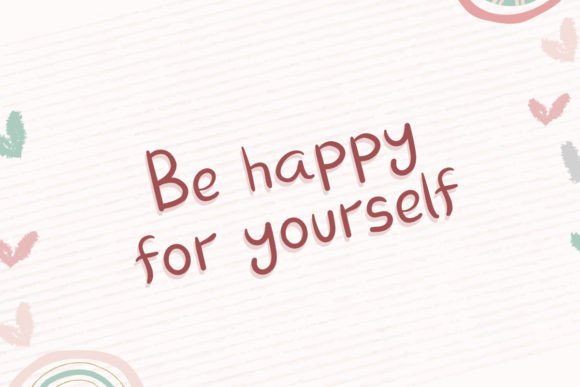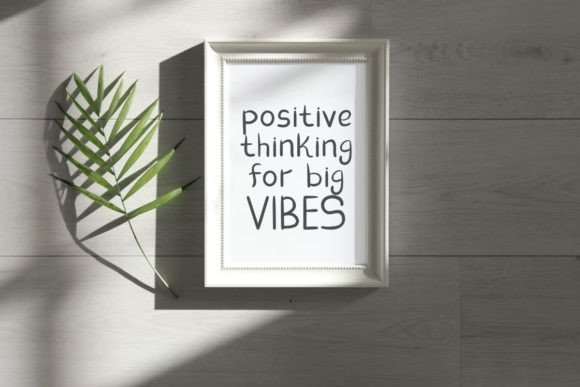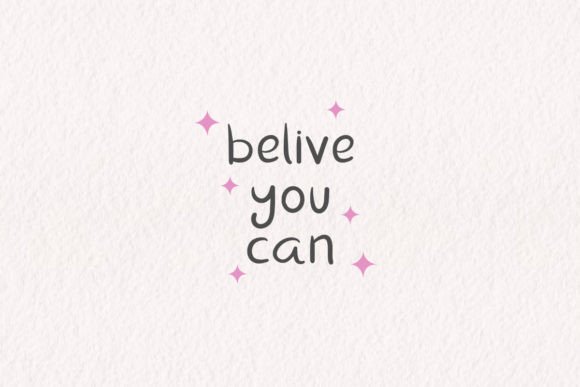
Memori is a cute and quirky sans-serif font.
It will add a joyful touch to your designs Add this beautiful display font to each of your creative ideas and notice how it makes them stand out.
Memori Font offers exceptional quality and versatility, making it a valuable addition to your design toolkit. Whether you’re creating for personal projects or commercial use, Memori Font delivers professional results.